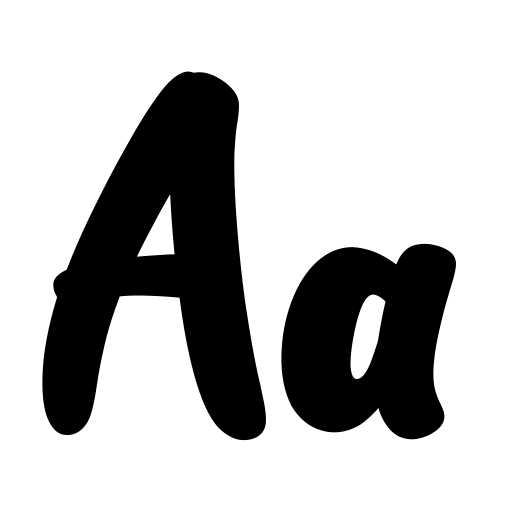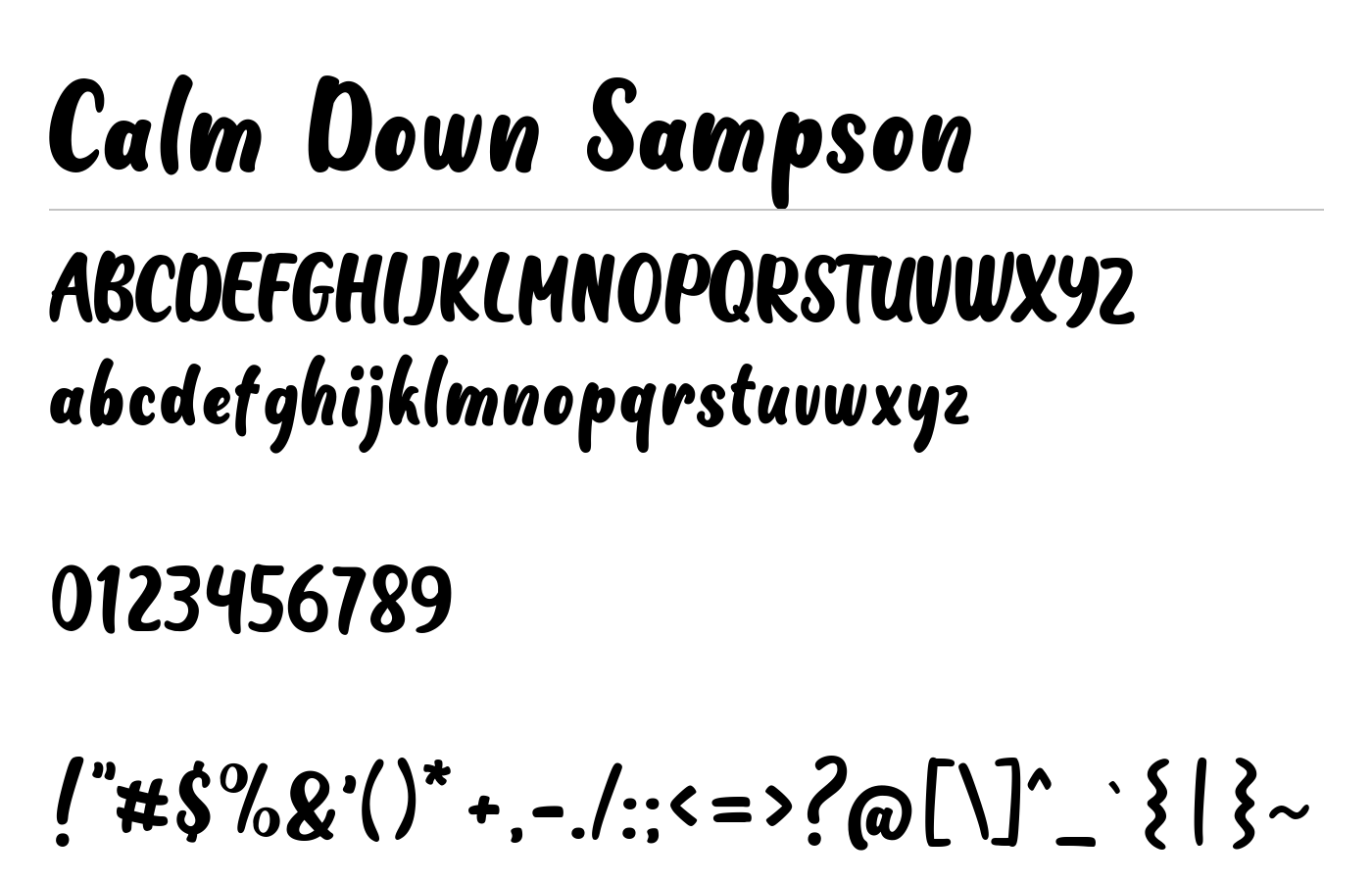
Calm Down Sampson is a playful and rounded script-style font with a friendly, casual vibe. Its smooth, brush-like strokes and slightly irregular letterforms give it a handcrafted and approachable feel, making it ideal for informal branding, creative projects, and fun headlines where warmth and personality are key. This font works well for logos, invitations, and packaging that want to convey cheerfulness and charm without losing readability.
Calm Down Sampson Font
About Calm Down Sampson Font
| Font family | Calm Down Sampson Font |
| Designer | deedeetype |